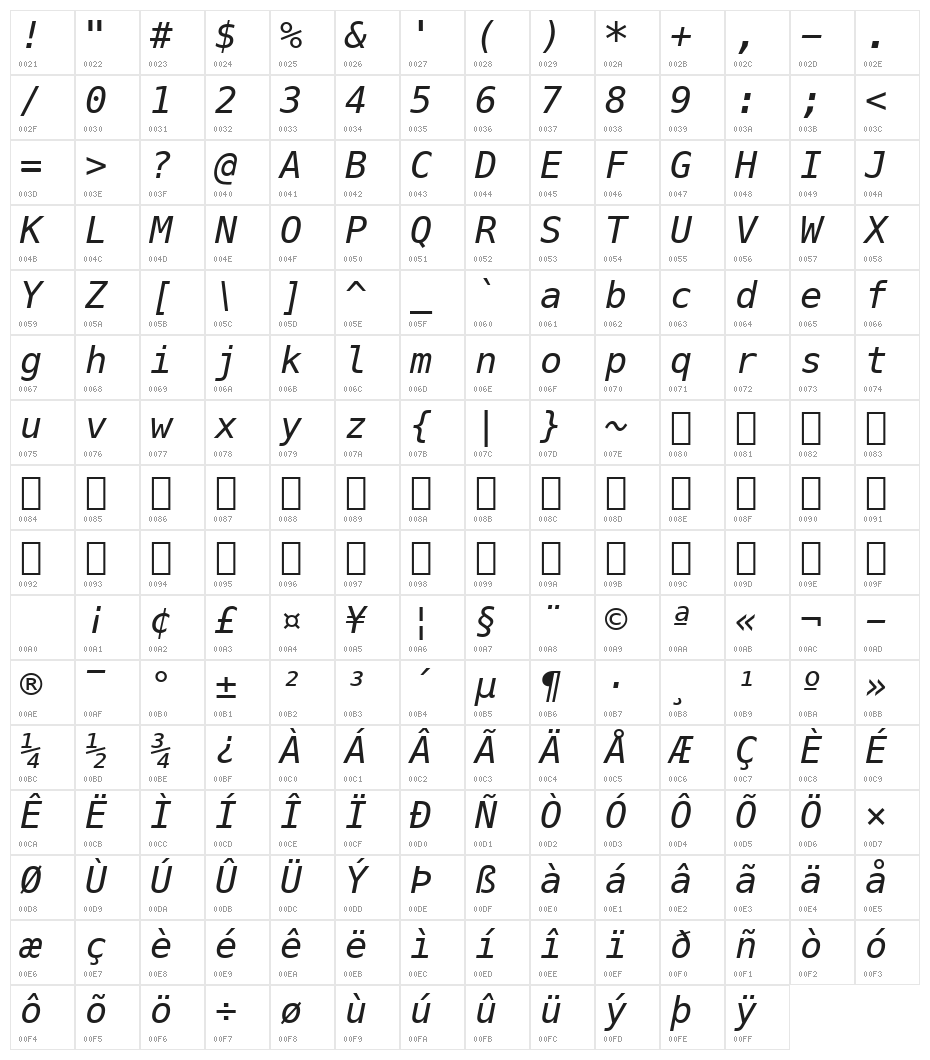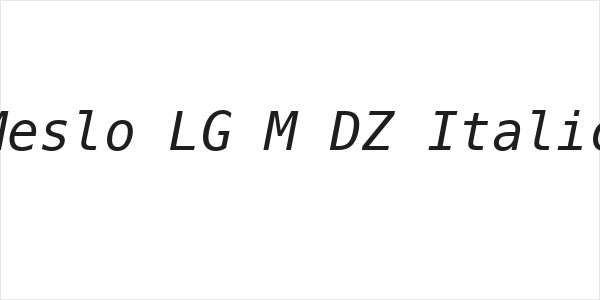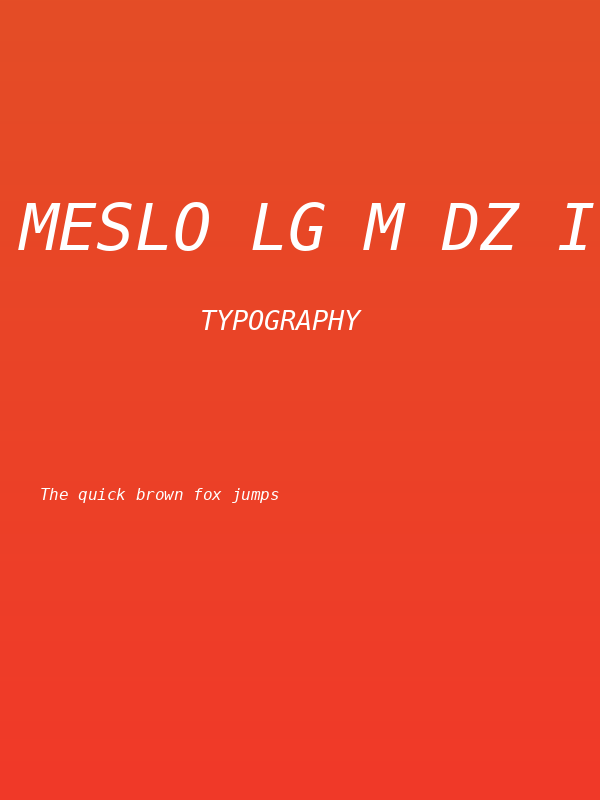
Meslo LG M DZ Italic Font
Meslo LG M DZ Italic Description
This font features a clean and modern design with a slight italic slant, giving it a dynamic and forward-moving appearance. The characters are monospaced, ensuring uniformity in width, which is ideal for coding and technical documentation. The strokes are consistent in thickness, providing a medium contrast that enhances readability without sacrificing style. The font maintains a balanced character spacing, making it suitable for both digital and print media. Its simplicity and clarity make it versatile for various applications.
| Use Case | Headlines, Body text, Coding |
| Proposed Projects | Ideal for coding environments, technical documentation, and any project requiring a clean, readable typeface. |